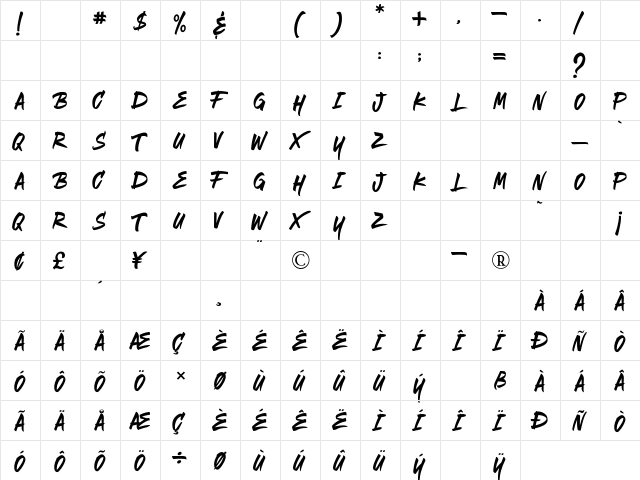
The Bregym Regular
Design Context for The Bregym Typeface
The Bregym is a composed and adaptable typeface that performs quietly and consistently across a wide range of design contexts.